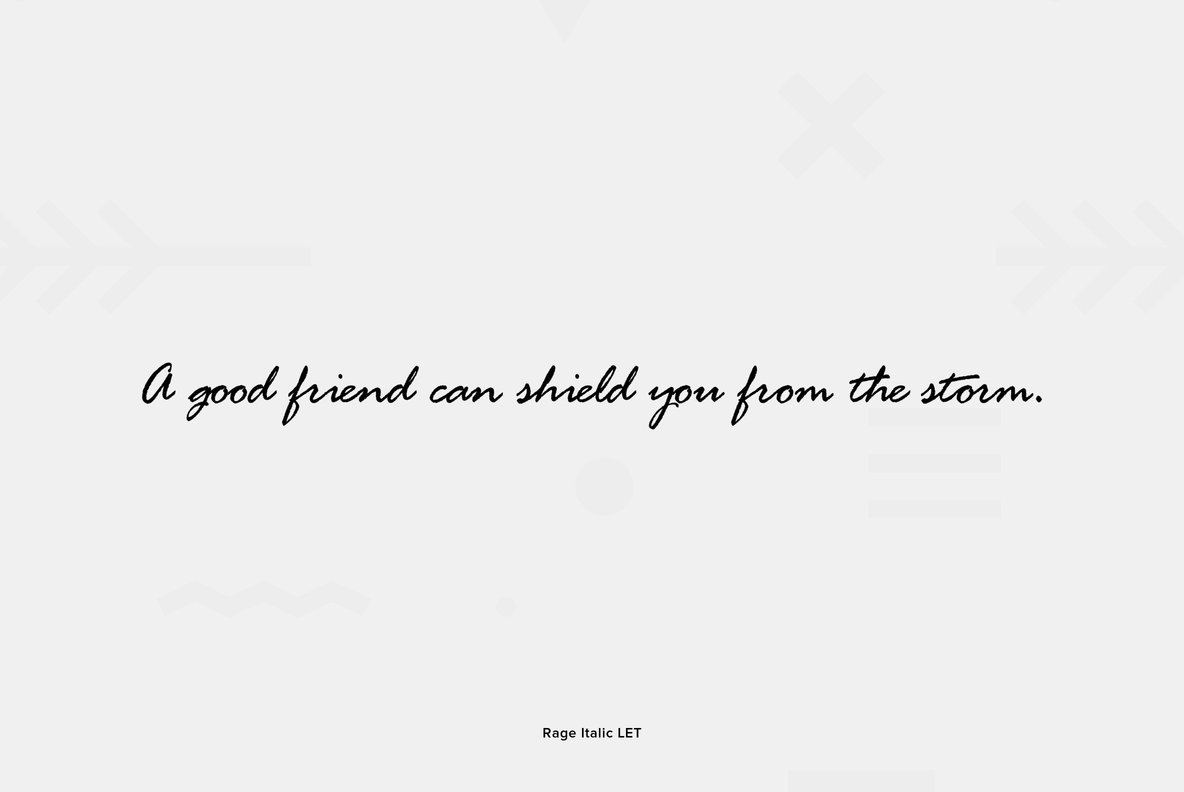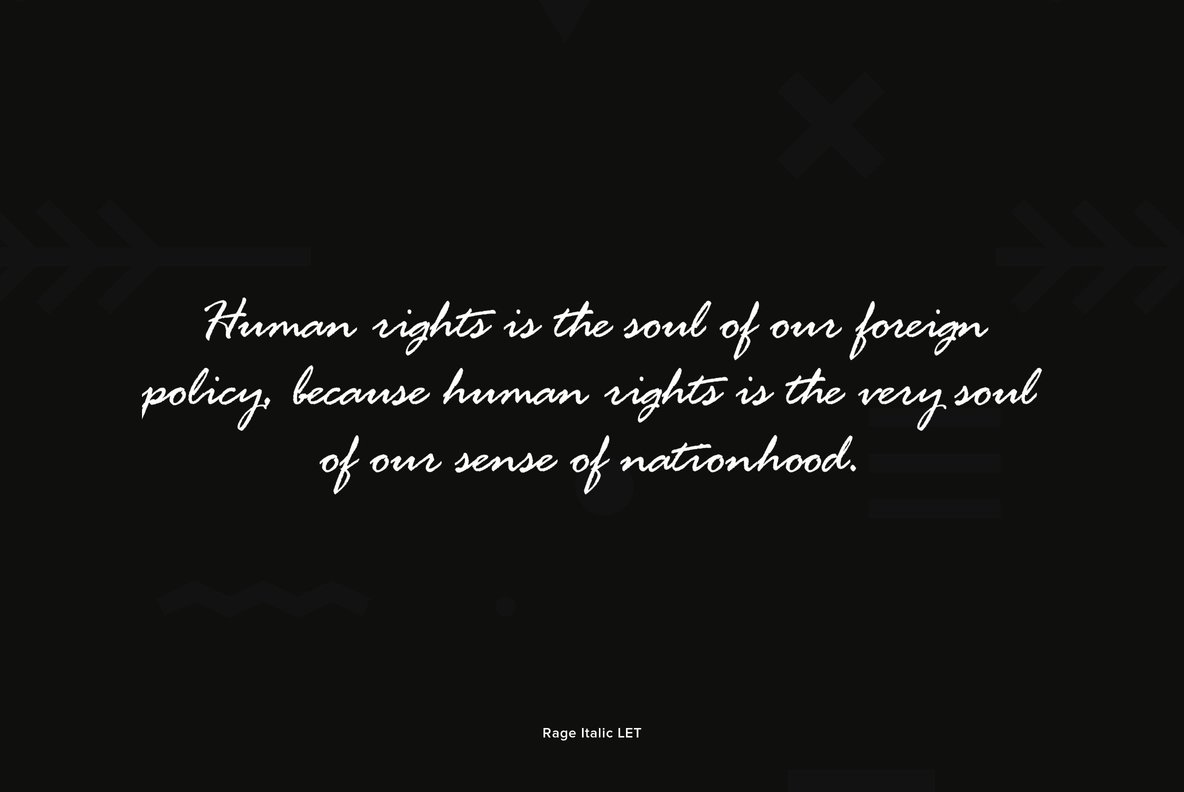
Rage Italic
Foundry: Letraset
American graphic designer Ron Zwingelberg created Rage in 1984. This popular style is one of the first casual brush script styles with a rough textured edge. The lower case letters can be linked up and are supported by a set of initialling capitals. An ideal choice where a spontaneous pen on parchment look is required.